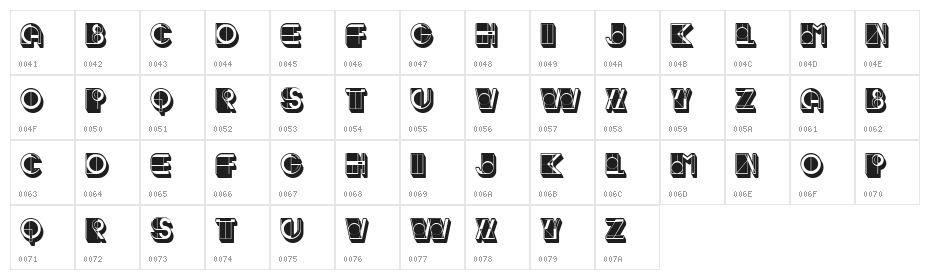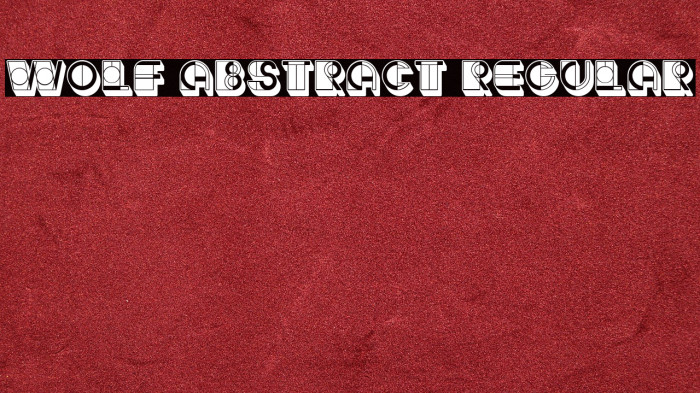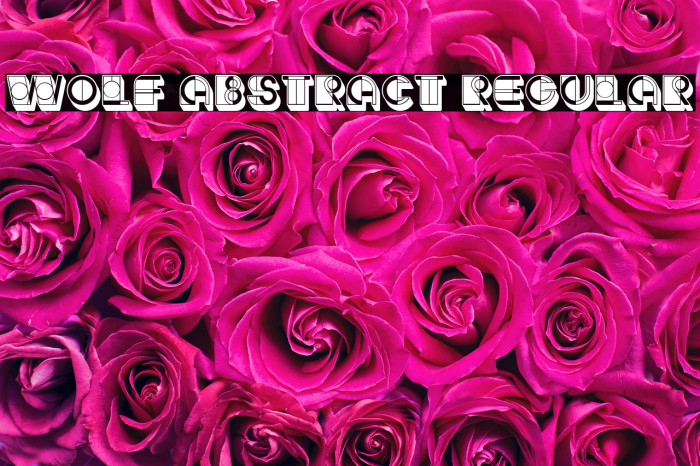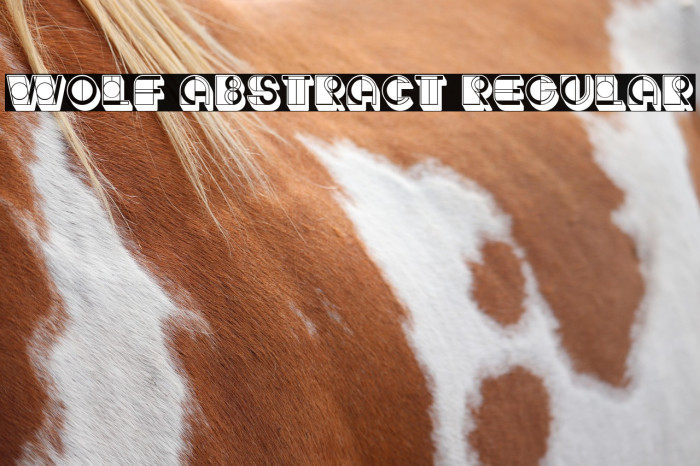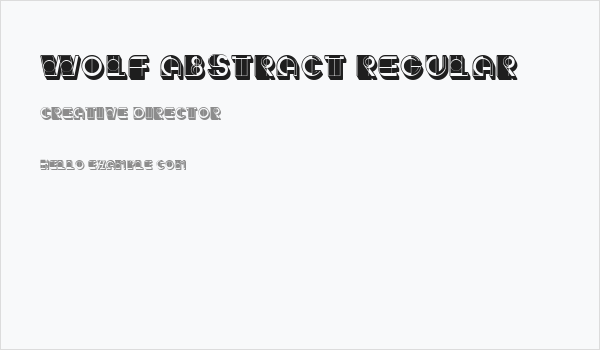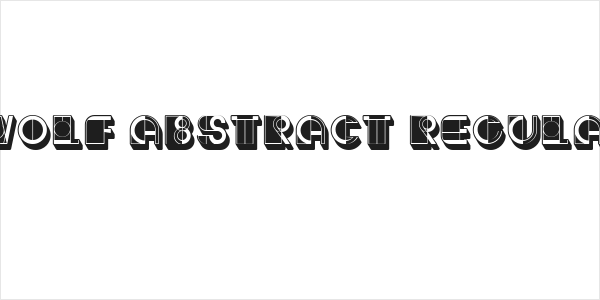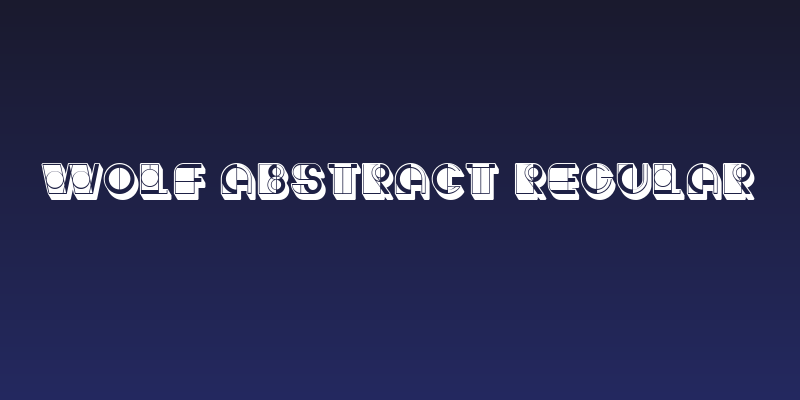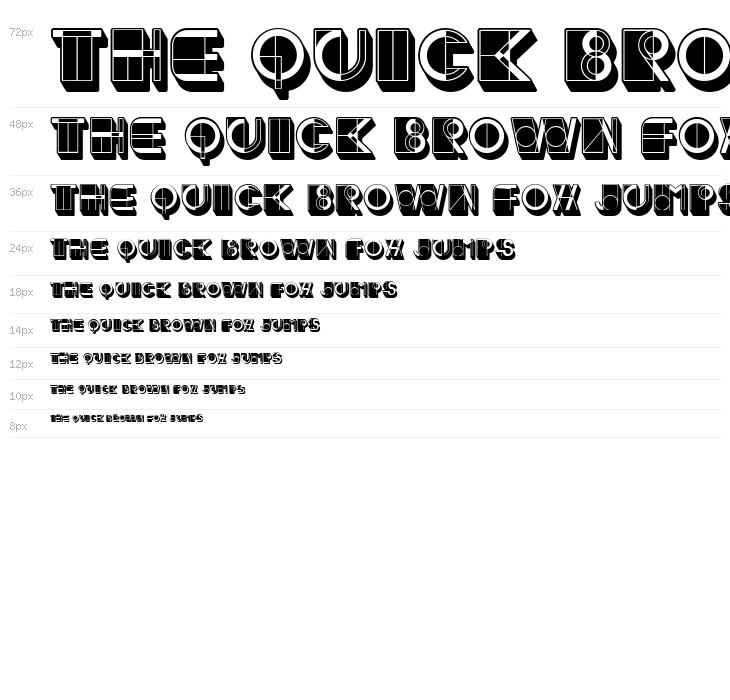
Wolf Abstract Regular Font
Wolf Abstract Regular Description
This font features a bold and geometric design with a three-dimensional effect that creates a sense of depth and structure. The letters are constructed with thick, solid lines and incorporate abstract shapes within each character, giving it a unique and modern appearance. The use of negative space is prominent, adding to the visual interest and complexity of the design. The font is highly stylized, making it suitable for creative and artistic projects where a strong visual impact is desired.
| Use Case | Logos, Headlines, Posters |
| Proposed Projects | Ideal for branding, posters, album covers, and any project needing a striking, modern aesthetic. |